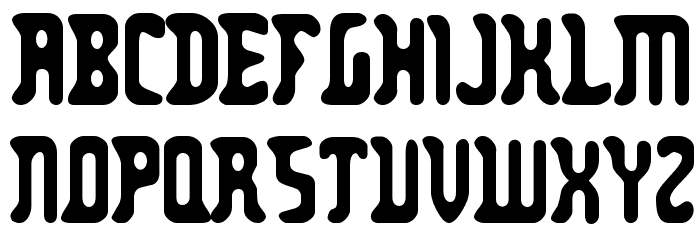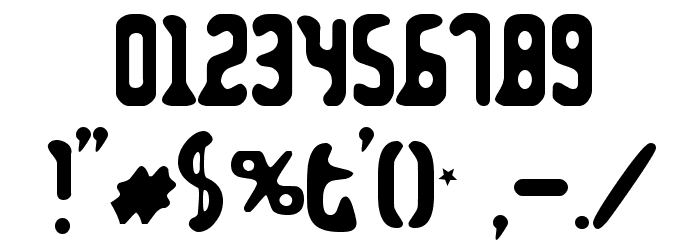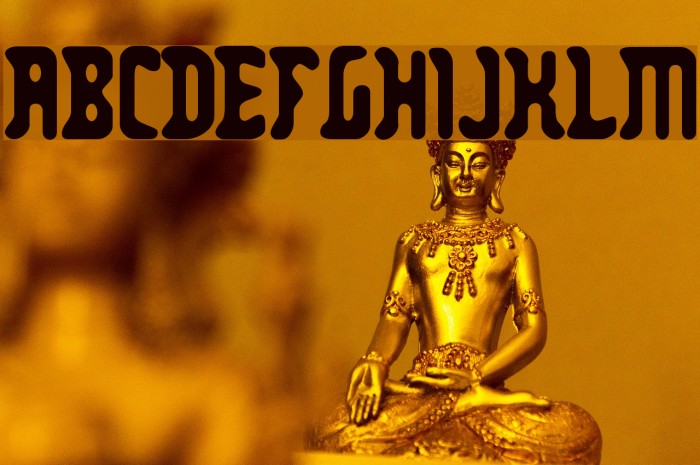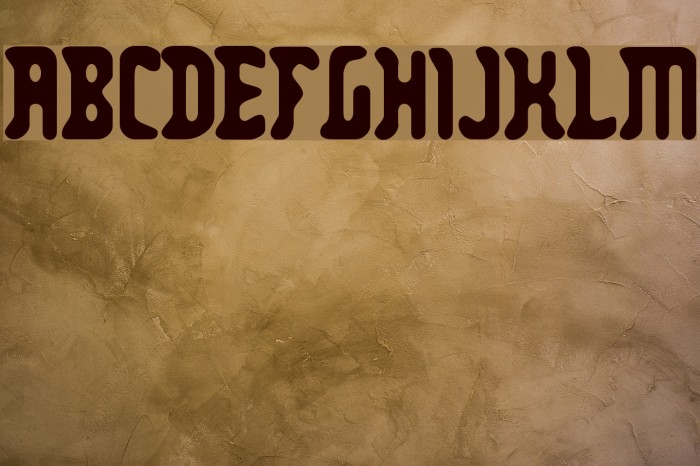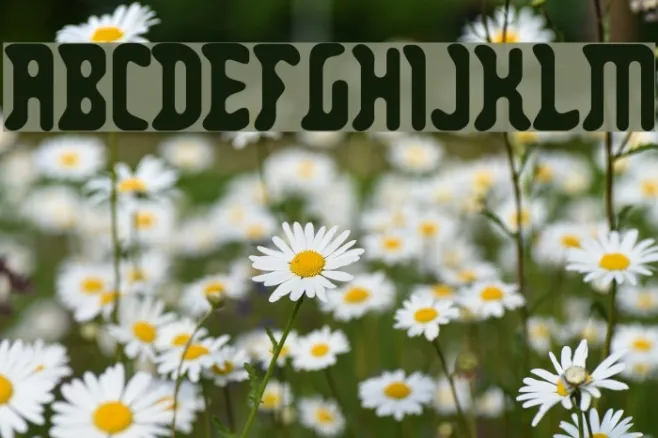
Zodillin Font
This font features a bold and robust design with a distinctly modern flair. The characters are thick and blocky, with rounded edges that soften the overall appearance. The uppercase letters are uniform in height, while the lowercase letters maintain a consistent style that complements the uppercase set. Numbers and special characters follow the same design principles, ensuring a cohesive look across all elements. The font's unique style makes it stand out, with a playful yet strong presence that is ideal for attention-grabbing designs.
A bold, modern font with rounded edges and a playful yet strong presence.
- Proposed Projects: Ideal for branding, posters, headlines, and any design that requires a bold statement.